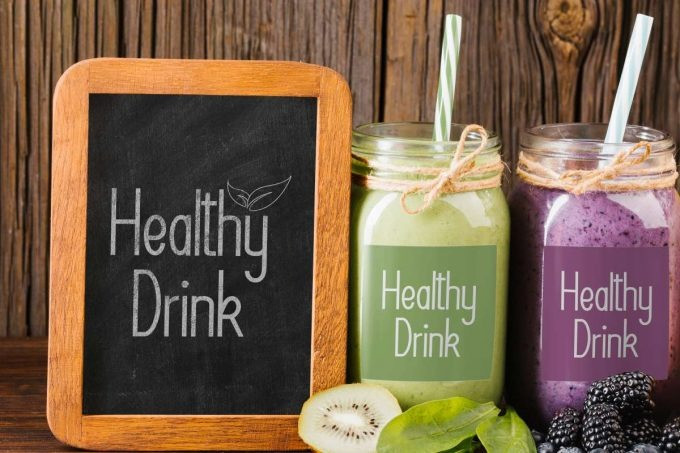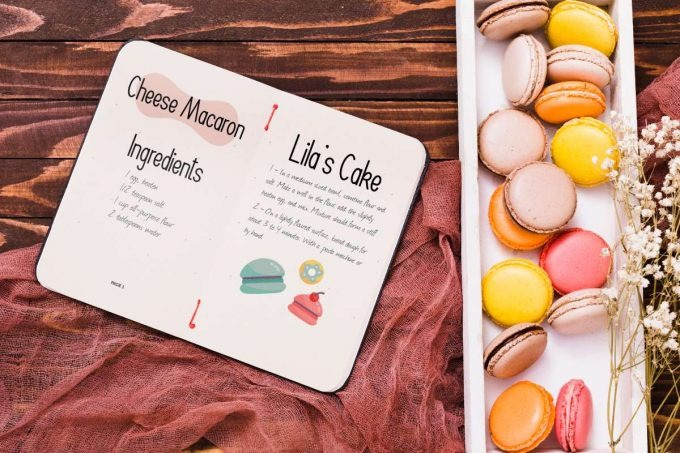
Berrycake Font
Berrycake Sans Serif Font is a casual yet minimalist sans display font. It will be suitable for many industries, such as bakery, café, fashion, healthy drink, pastry shop, photography, printing, restaurant, etc. This font has four different styles, named Regular, Bold, Italic, and Bold Italic, which will give your designs a modern look.
Berrycake Font includes full set of Uppercase and Lowercase Basic Character, Numerals and Punctuation. This font will be perfect for your designs that require a casual modern look and paired with many types of fonts. Use this font to enhance your designs, such as body text, brochure, business card, invitations, labels, product packaging, poster, quote, signage, stationery, website, and more!